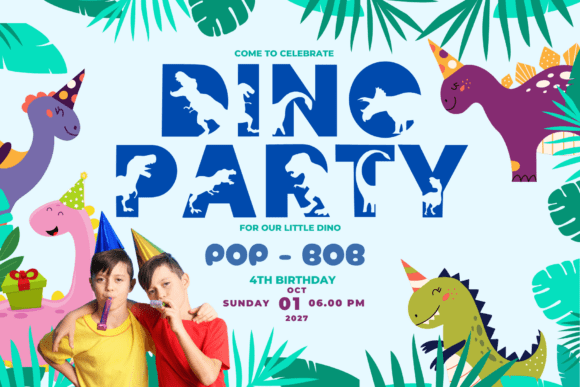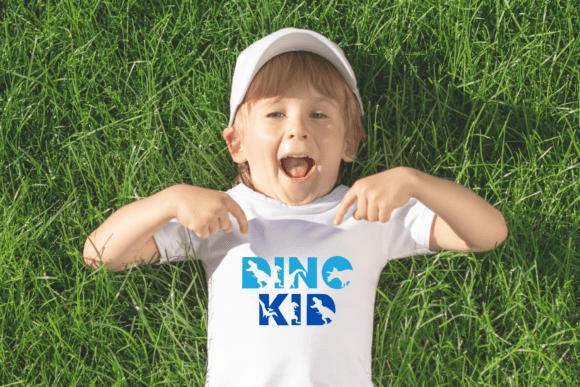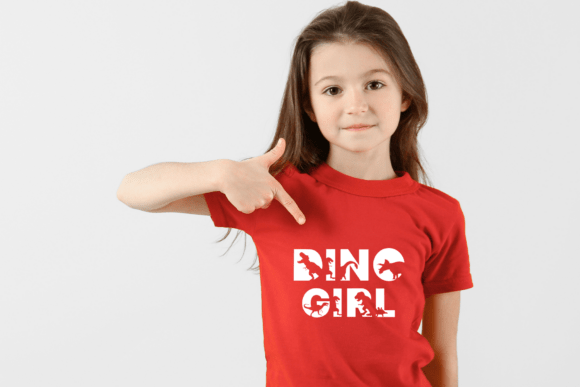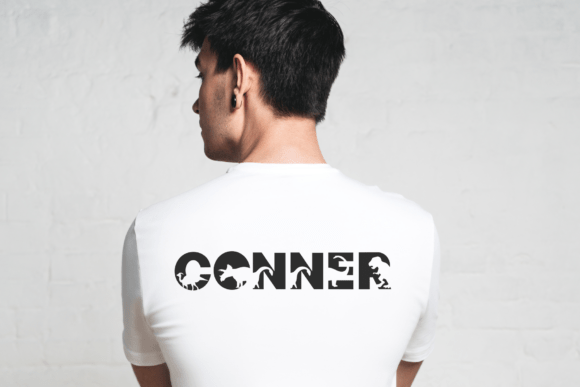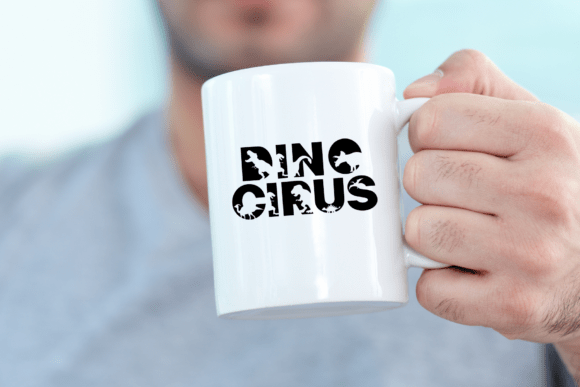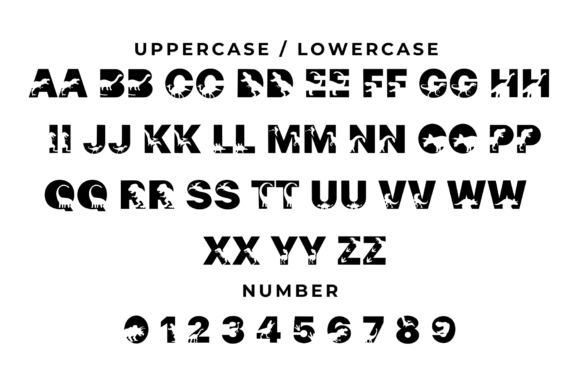
Bringing Prehistoric Charm to Your Designs
Have you ever stared at a blank page, trying to spark that next creative idea? You know, the moment when everything comes together, and your imagination runs wild. For designers, these moments are what make the job so thrilling – and sometimes, all it takes is the right font to set the spark off. That’s where the Dinosaur Font comes in, a bold, friendly, and playful decorative font that brings a touch of prehistoric charm to any project.
This unique font features adorable dinosaurs on each character, making it perfect for cartoon-related designs, children’s games, quotes, titles, and more. Whether you’re working on a book cover, poster, or just need a special touch for your brand, the Dinosaur Font is a valuable addition to your design arsenal. Its versatility and whimsy make it a go-to choice for designers looking to add a little fun and personality to their work.
Dinosaur Font Key Features
- Font Family: Dinosaur Font is a sans-serif font family with a prehistoric twist, designed to evoke the era of dinosaurs.
- Unique Characteristics: The font features a bold, playful design with irregular shapes and rough edges, giving it a rugged, prehistoric feel.
- Stylistic Sets: Includes 6 stylistic sets, each offering a different variation of the font, allowing designers to add unique touches to their work.
Dinosaur Font Review
I recently had the chance to work with the “Dinosaur Font” and I must say, it’s a mixed bag. Here’s my honest review.
- The font’s unique design and quirky feel can add a touch of whimsy to any project.
- The font is highly customizable, making it easy to adjust the size, color, and style to fit your needs.
- The font can be overwhelming to read in large blocks of text, which may be a concern for projects that require a lot of body text.
- The font’s unique design may not be suitable for all audiences, particularly those who prefer more traditional or formal typography.
- The font may require additional styling to ensure it’s legible on smaller screens or in low-light environments.
The “Dinosaur Font” is a fun and playful addition to any design project. While it may not be suitable for all projects, it’s a great choice for those looking to add a touch of personality and whimsy to their work. With a little creativity and styling, this font can add a unique touch to your designs.
The Dinosaur Font is perfect for:
- Children’s educational materials
- Prehistoric-themed designs
- Fun and playful graphics